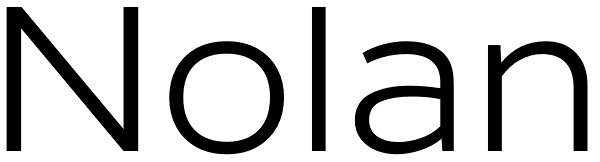
Nolan
The idea behind Nolan is to create emotional response due to its inviting character and legibility. It is ideal for headlines, presentations, product signage and bespoke logotypes. Due to the structure of the letters, Nolan can also stand its ground...